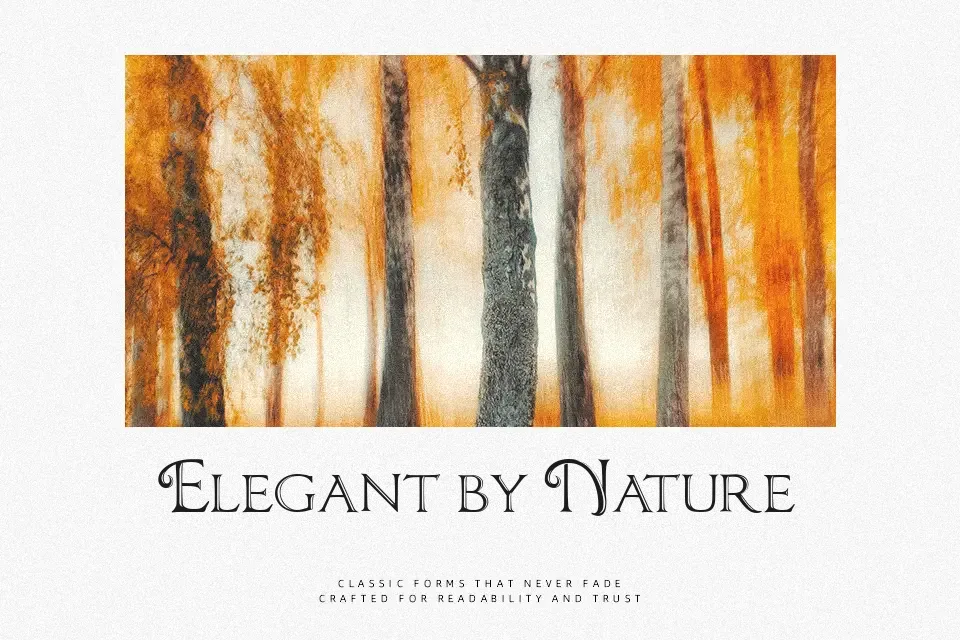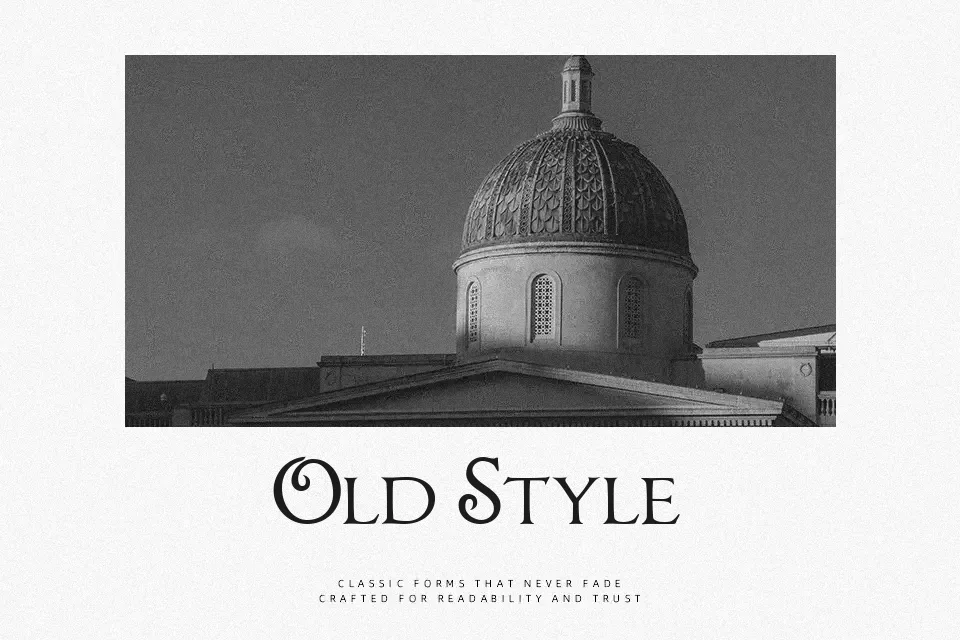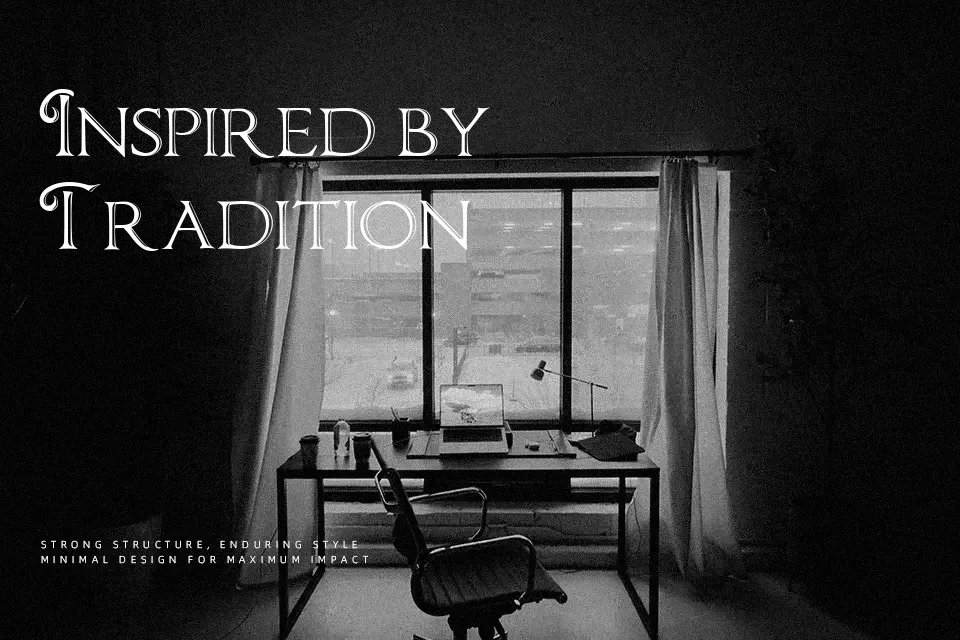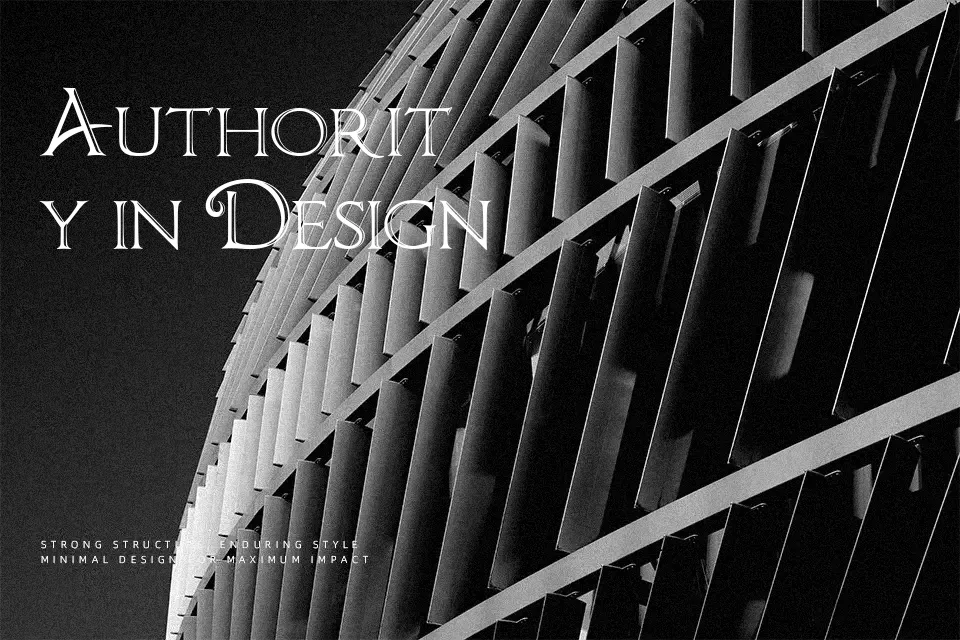
Chocolate Box Font
Designed by Paul Lloyd
Chocolate Box Font presents an expressive decorative design defined by dramatic stroke contrast, curled terminals, and vintage-inspired letter structures. The typeface employs generous character widths paired with relatively compact spacing, giving headlines a cohesive, rhythmic presence. Uppercase glyphs carry prominent decorative flourishes, while the lowercase letters provide balanced proportions suited for medium display sizes. The intricate detailing ensures strong visual impact across artisanal packaging, retro cafe signage, and themed greeting cards. However, the heavy embellishments and pronounced contrast reduce legibility in extended body text or small interface captions. Spacing helps maintain clarity in larger headlines, but dense paragraphs quickly become cluttered.
Best For: vintage confectionery packaging, retro cafe signage, greeting card titles, dessert brand logos
Not Ideal For: continuous body text, mobile UI microcopy, dense financial reports, technical documentation
Perfect for headline, invitation, and logo, with a elegant and decorative style.